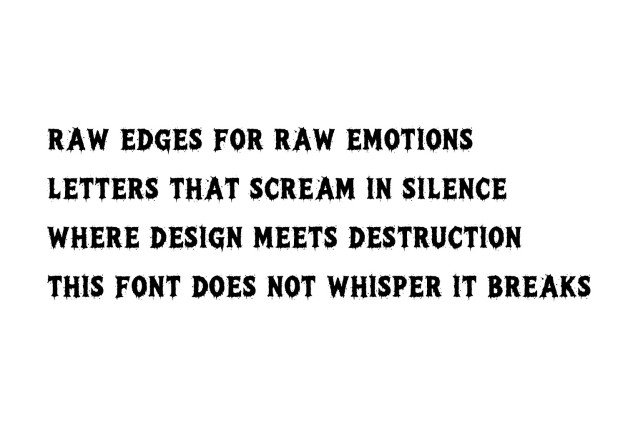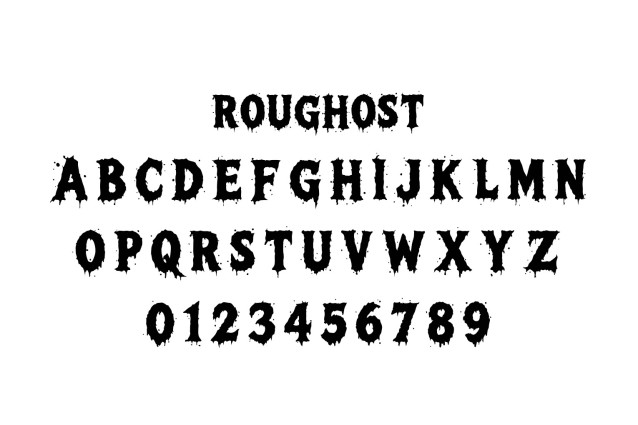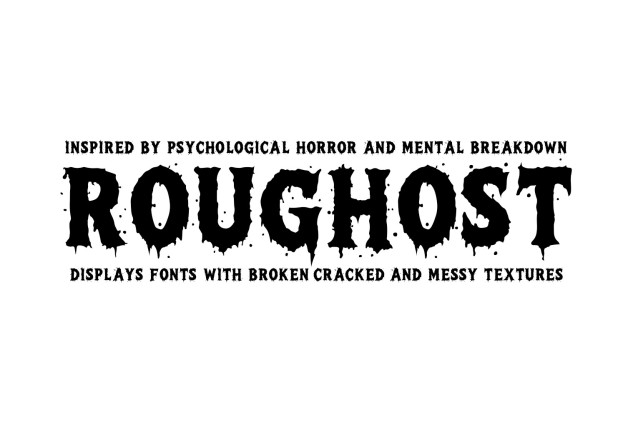
Roughost Font
Roughost Font a powerful display font tailored for horror, thriller, and street culture themes. Every single character is crafted with striking bleeding edges and an eroded, splattered texture that guarantees a heavy visual impact.